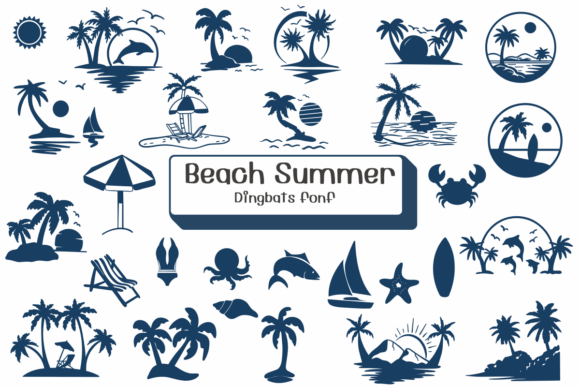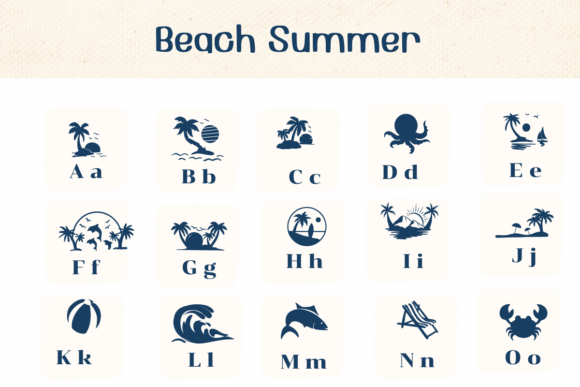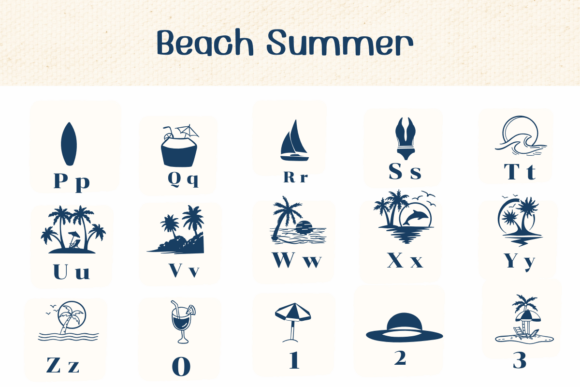
About the Beach Summer Font
Discover the charm of Beach Summer Font. This font is a perfect blend of modern aesthetics and classic appeal. Beach Summer is a tropical dingbats font packed with palm trees, ocean waves, sun loungers, and summer fun. Great for vacation flyers, travel agencies, t-shirt designs, or digital scrapbooking, this set of icons brings a breezy, coastal vibe to your creations.